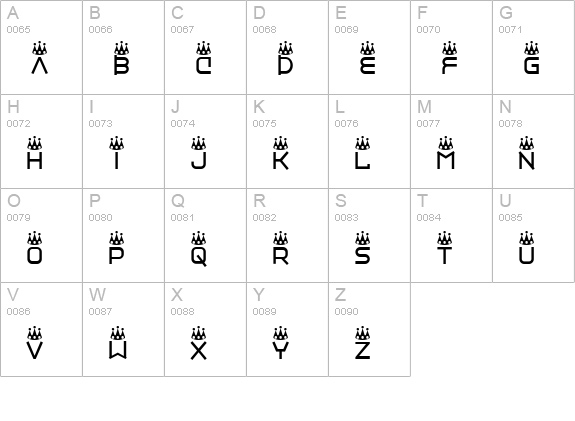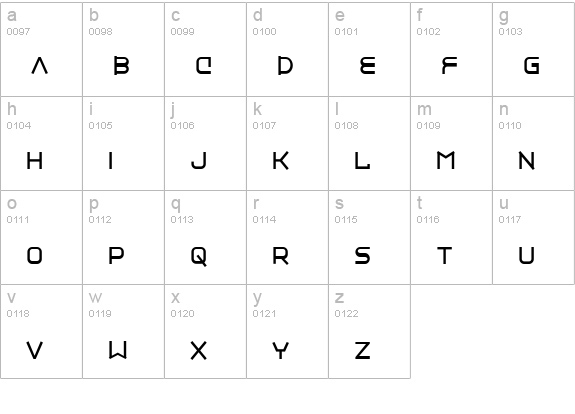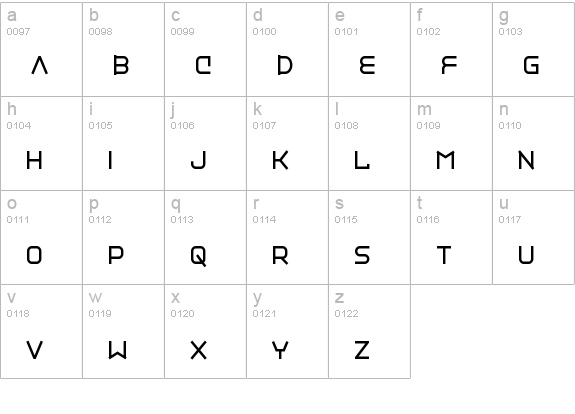
Introducing the Vinyl Repair Kit font, a versatile and stylish typeface that will bring a touch of nostalgia and authenticity to any design project. Inspired by the classic vinyl record covers of the past, this font encapsulates the retro charm and timeless elegance that only vinyl can offer. With its clean lines and bold presence, the Vinyl Repair Kit font is perfect for a wide range of applications. Whether you're designing a vintage-inspired logo, creating eye-catching headlines, or adding a touch of retro flair to your social media posts, this font will effortlessly capture attention and create a lasting impression. But what sets the Vinyl Repair Kit font apart from the rest is its accessibility. We believe that great design should be accessible to all, which is why we are thrilled to offer this font for free. Yes, you read that right – it's freely available to download at FontsMarket.com. Now anyone, from professional designers to hobbyists, can enjoy the beauty and versatility of the Vinyl Repair Kit font without breaking the bank. Not only is the Vinyl Repair Kit font free, but it also comes with a comprehensive set of characters and glyphs, including upper and lowercase letters, numerals, punctuations, and special symbols. This ensures that you have all the tools you need to bring your creative vision to life with ease and precision. The Vinyl Repair Kit font is designed with utmost care and attention to detail, ensuring that each letter and curve is perfectly balanced and harmonious. Its smooth and consistent letterforms create a seamless reading experience, making it a pleasure to use in any context. So why wait? Download the Vinyl Repair Kit font today and experience the magic of vintage design combined with modern accessibility. Let your creativity soar as you explore the limitless possibilities this font has to offer. Get ready to leave a lasting impression with the timeless charm of the Vinyl Repair Kit font, now available for free at FontsMarket.com.